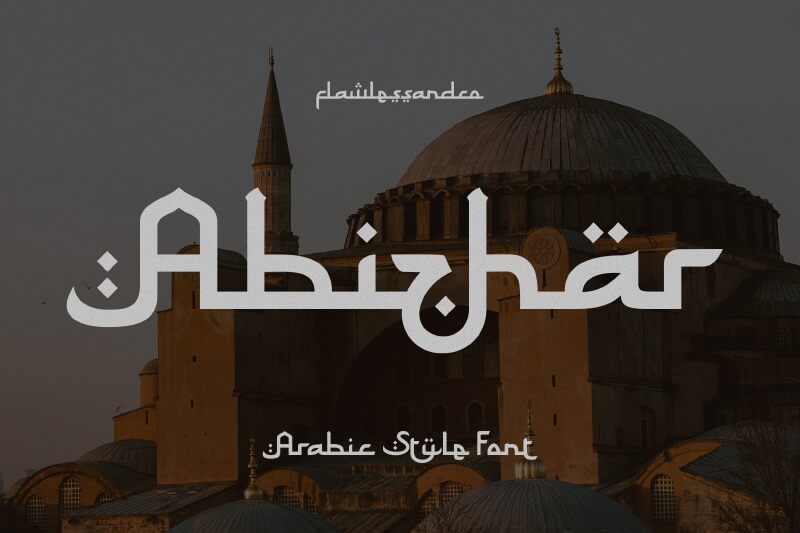
Abizhar Regular
Abizhar is a captivating Arabic font that effortlessly blends traditional elegance with modern dynamism. Designed by Achmad Yani, this typeface boasts a bold, striking presence that immediately commands attention. The sharp, angular forms and dramatic contrasts between the thick and thin strokes create a visual dynamism that is both powerful and refined. Abizhar's expansive, commanding presence makes it an ideal choice for bold headlines, signage, and branding applications, where it can lend a sense of authority and impact. Equally, its refined aesthetic and legibility make it suitable for longer-form editorial and publishing contexts, where it can enhance the reading experience with its captivating yet accessible style.
Abizhar is a versatile font that seamlessly bridges the gap between tradition and modernity, offering designers a unique and impactful typographic solution.